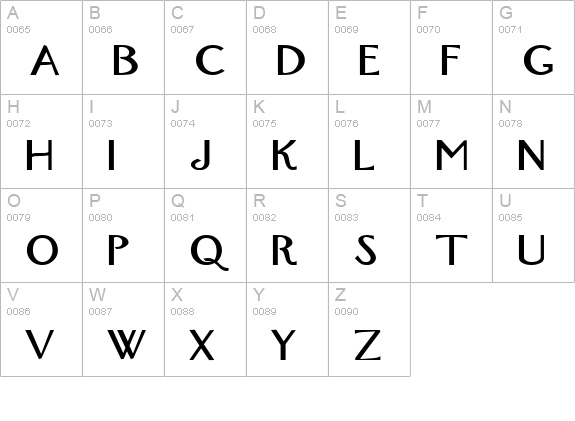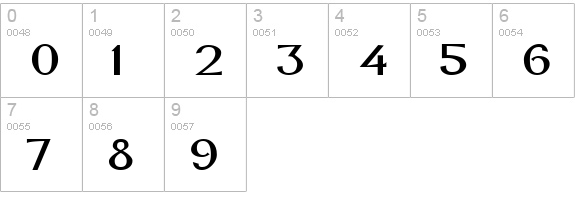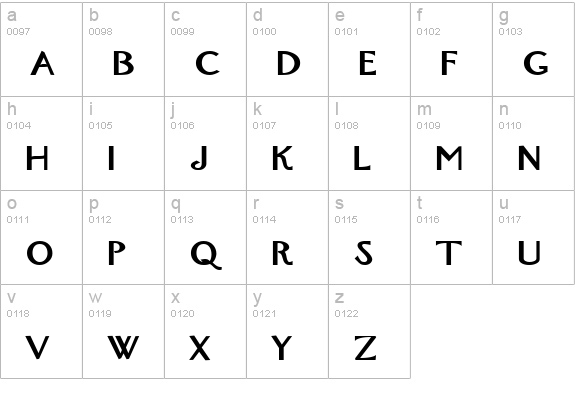
New York-Extended Bold Font Details
New York-Extended Bold is a strong, high-contrast, extended-width variant in the New typeface family \xE2\x80\x94 well suited to headlines, attention-grabbing titles, and strong calls-to-action.
New York-Extended Bold font is a stylish and modern typeface that exudes confidence and sophistication. With its bold and eye-catching design, this font is perfect for making a statement in your designs. The extended characters add a unique touch, making it stand out from other fonts. The best part is that New York-Extended Bold font is available for free download at FontsMarket.com. Whether you are working on a poster, logo, or any other design project, this font will surely make an impact. Don't miss out on the opportunity to enhance your work with this versatile and striking typeface. Download New York-Extended Bold font today and take your designs to the next level!